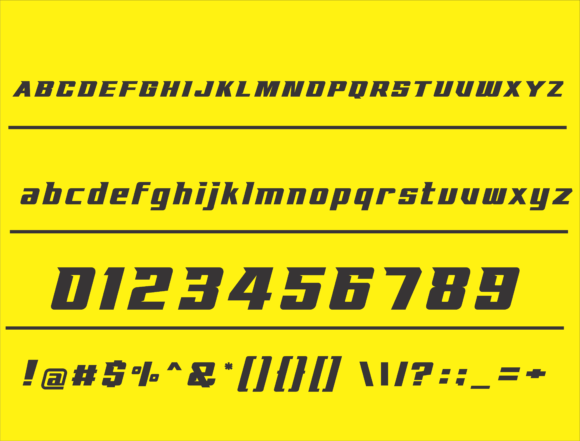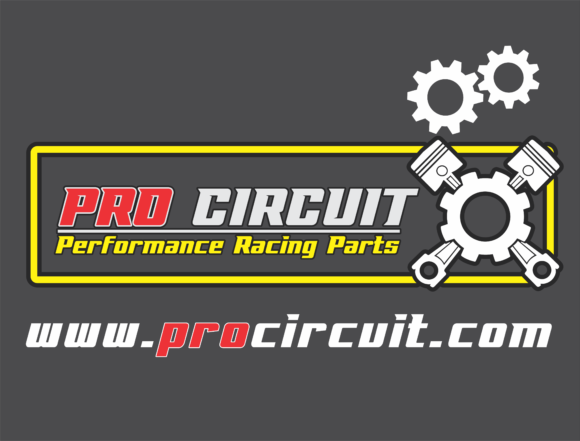
Introduction to Pro Circuit Font
Have you ever stared at a blank canvas, your creative juices flowing, but struggling to find the perfect design resource to bring your vision to life? We’ve all been there. The blank page can be daunting, but what if you had the right tool to spark your imagination? Enter the Pro Circuit Font, a modern and assertive racing styled display font that’s about to become your new favorite design companion.
Whether you’re working on a high-profile creative project or just experimenting with new ideas, the Pro Circuit Font is an incredible asset to have in your library. Its high quality design makes it perfect for adding a touch of sophistication and style to any project, from digital graphics to print materials. And the best part? This stunning font is available for a free download, so you can get creative without breaking the bank.
Key Features of Pro Circuit Font
- Unique, futuristic font style with a transparent background, perfect for modern designs
- Designed to be easily scalable, allowing for flexibility in font size and layout
Honest Review: Pro Circuit Font
I recently stumbled upon the Pro Circuit Font while searching for design resources to enhance my creative project. As a designer, I was excited to dive in and see what it had to offer.
First impressions are everything, and the Pro Circuit Font definitely delivers. It’s a high-quality font with a sleek and modern design that would look great on any project. One of the standout features is the transparent background, which makes it easy to use in a variety of applications.
- High-quality design that’s perfect for modern projects
- May not be suitable for projects requiring a more vintage or distressed look
- Limited font styles available (⚠️)
Overall, I’m really impressed with the Pro Circuit Font. It’s a great addition to any designer’s toolkit and would be perfect for a variety of creative projects. With its high-quality design and transparent background, it’s a must-have resource for any serious designer.
How to Use Pro Circuit Font
The Pro Circuit Font is a high-quality, free download that can elevate any creative project. With its sleek and modern design, it’s perfect for designers looking for a unique and professional touch.
Tips for Getting the Most Out of Pro Circuit Font
Use the Pro Circuit Font in combination with a transparent background to create a modern and sleek design. Experiment with different font sizes and styles to add visual interest to your project.
The Pro Circuit Font is perfect for creating logos, graphics, and social media posts for sports and fitness brands. It’s also great for designing presentations, documents, and websites that require a modern and professional touch.